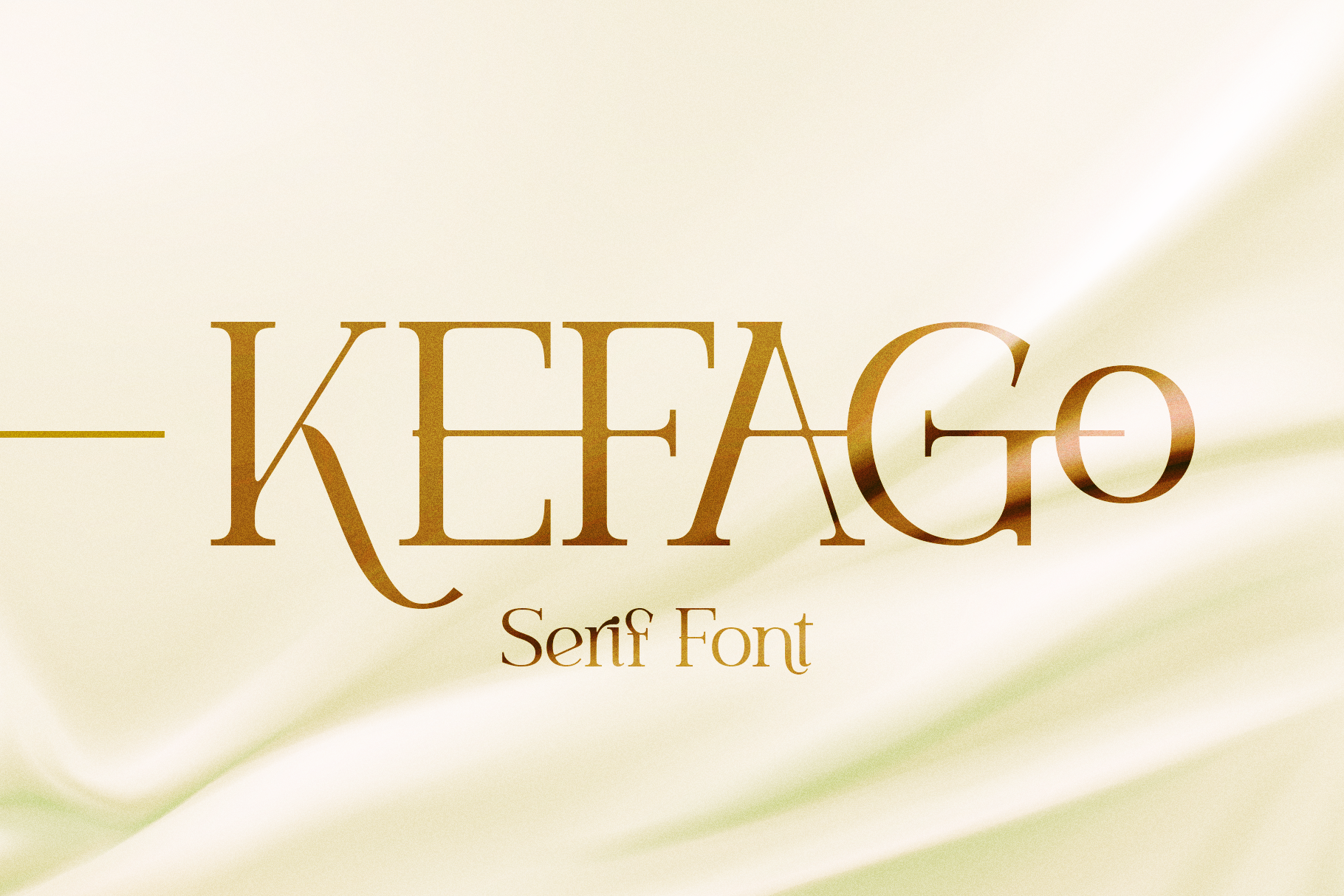
Kefago Font
Kefago is an elegant and stylish serif typeface. It's sharp and light edges, that creates beautiful typographic adjacency. The font is perfect for text quotes and other design graphic projects such as wedding invitation card, Magazine Header and body text, flyer header and even logo text.
Kefago features:
- Uppercase and lowercase glyph
- Numeral and punctuation
- Ligatures and alternates